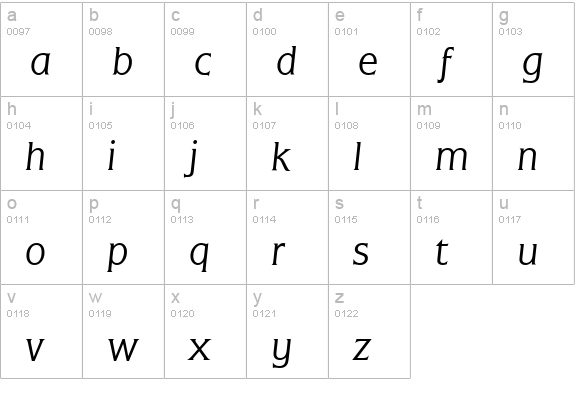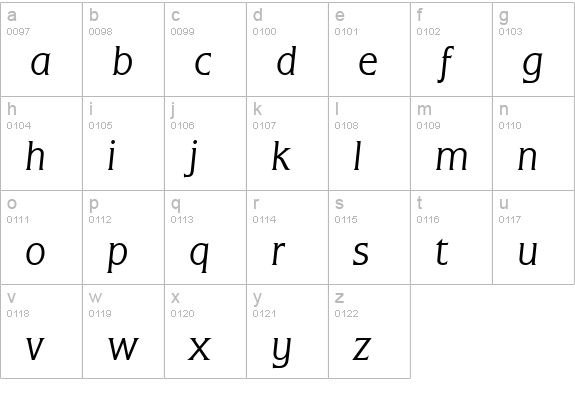
Frascati-Light-Italic Font Details
Frascati-Light-Italic is a refined, elegant, italic variant in the Frascati typeface family \xE2\x80\x94 well suited to elegant body text, refined sub-headings, and luxury branding.
Frascati-Light-Italic font is a modern and elegant typeface that exudes sophistication and grace. Its delicate and flowing italic style adds a touch of refinement to any design project. The light weight of the font gives it a subtle and airy appearance, perfect for conveying a sense of elegance and sophistication. What's even better is that Frascati-Light-Italic font is available for free download at FontsMarket.com. This means you can easily access and use this beautiful typeface in your projects without any cost. Whether you're designing a website, creating marketing materials, or working on a branding project, Frascati-Light-Italic font is a versatile choice that will elevate your designs with its timeless appeal. Download it today and add a touch of class to your creations!